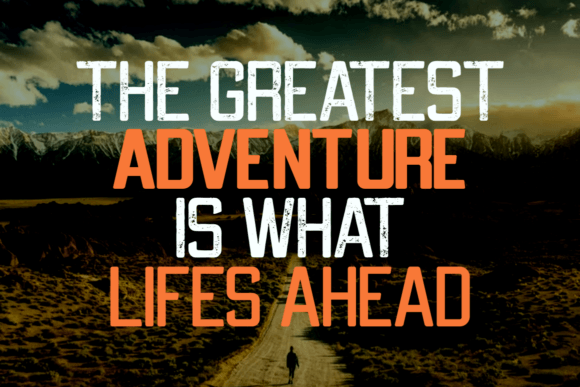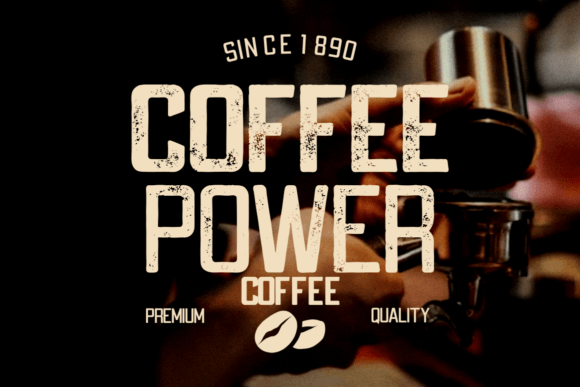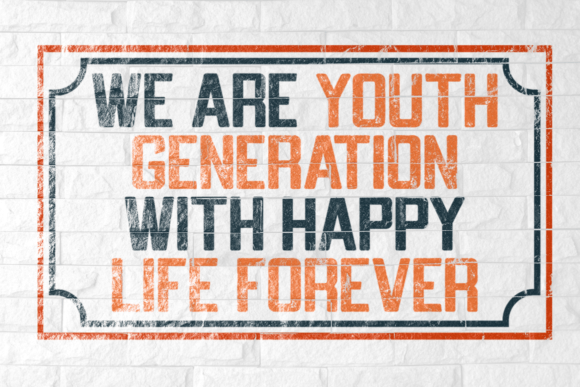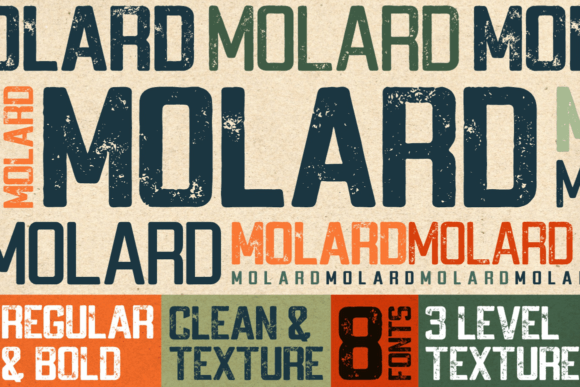
Introduction to Molard Font
Unleash your design potential with Molard – Modern Various Font.
This sans-serif typeface offers a diverse range of styles, featuring two distinct weights and versions – clean and textured With a selection of three texture levels, Molard presents a total of eight fonts in its collection.
Why Choose Molard Font?
Molard Font offers exceptional quality and versatility, making it a valuable addition to your design toolkit. Whether you’re creating for personal projects or commercial use, Molard Font delivers professional results.